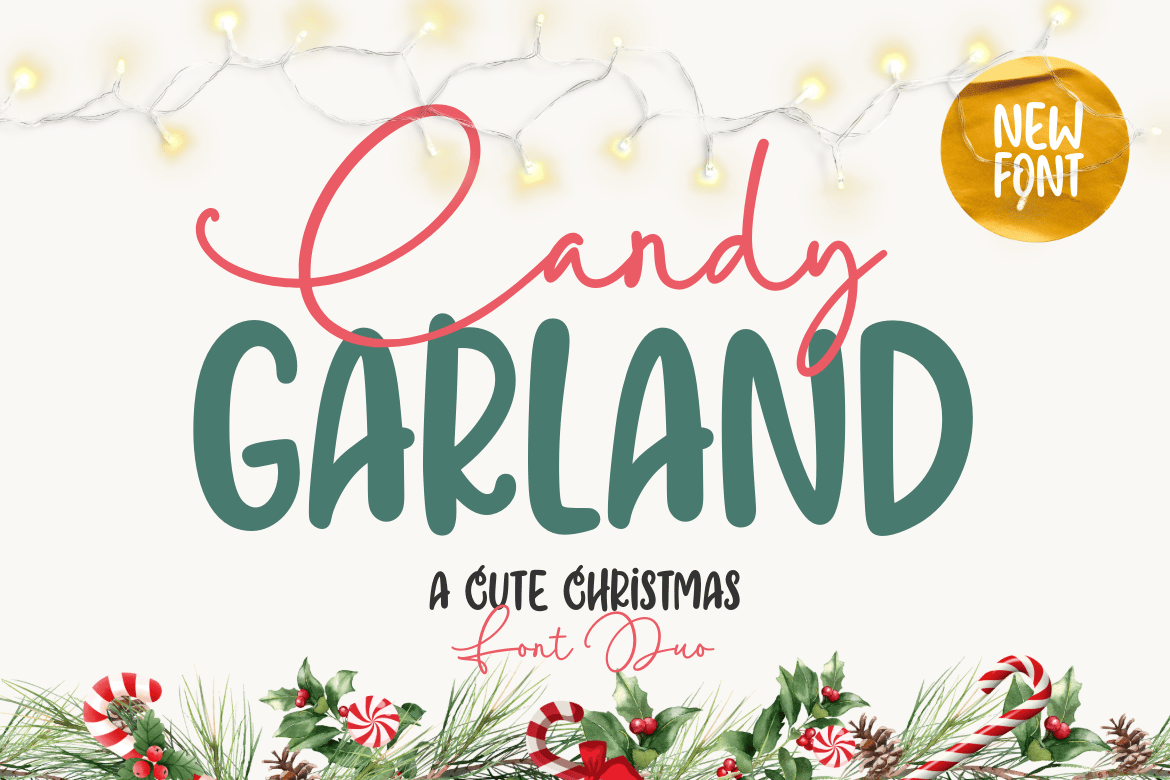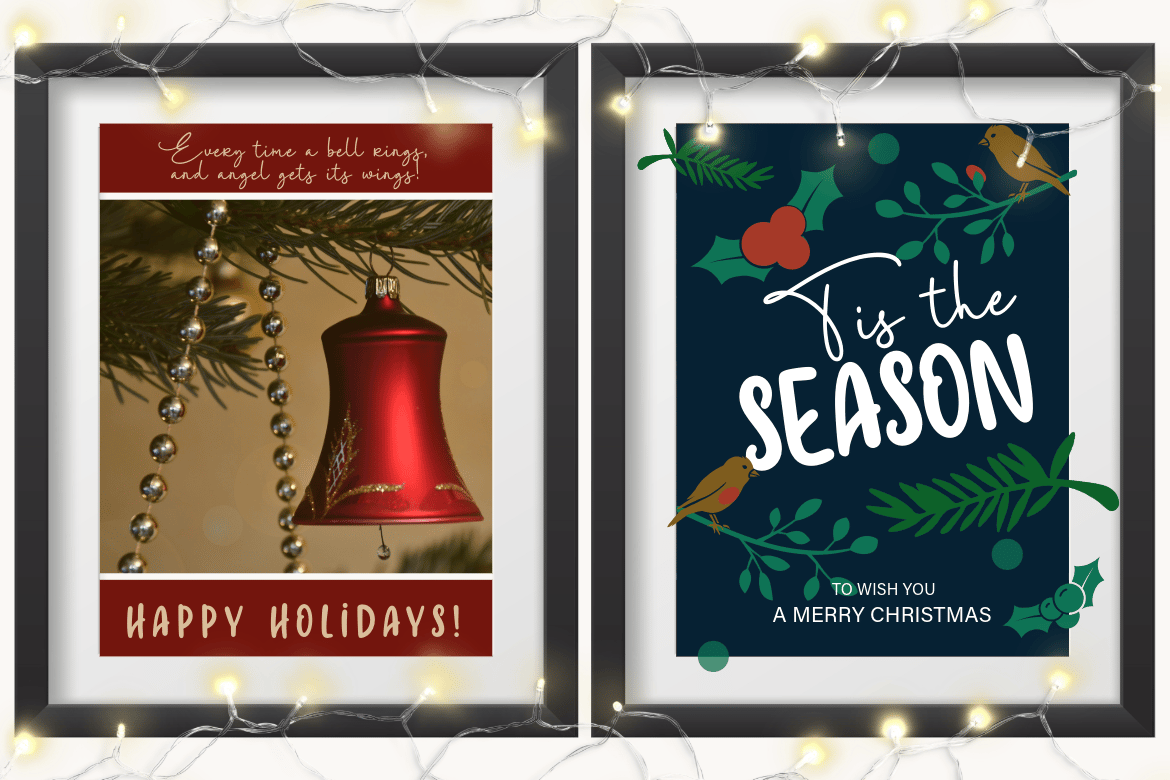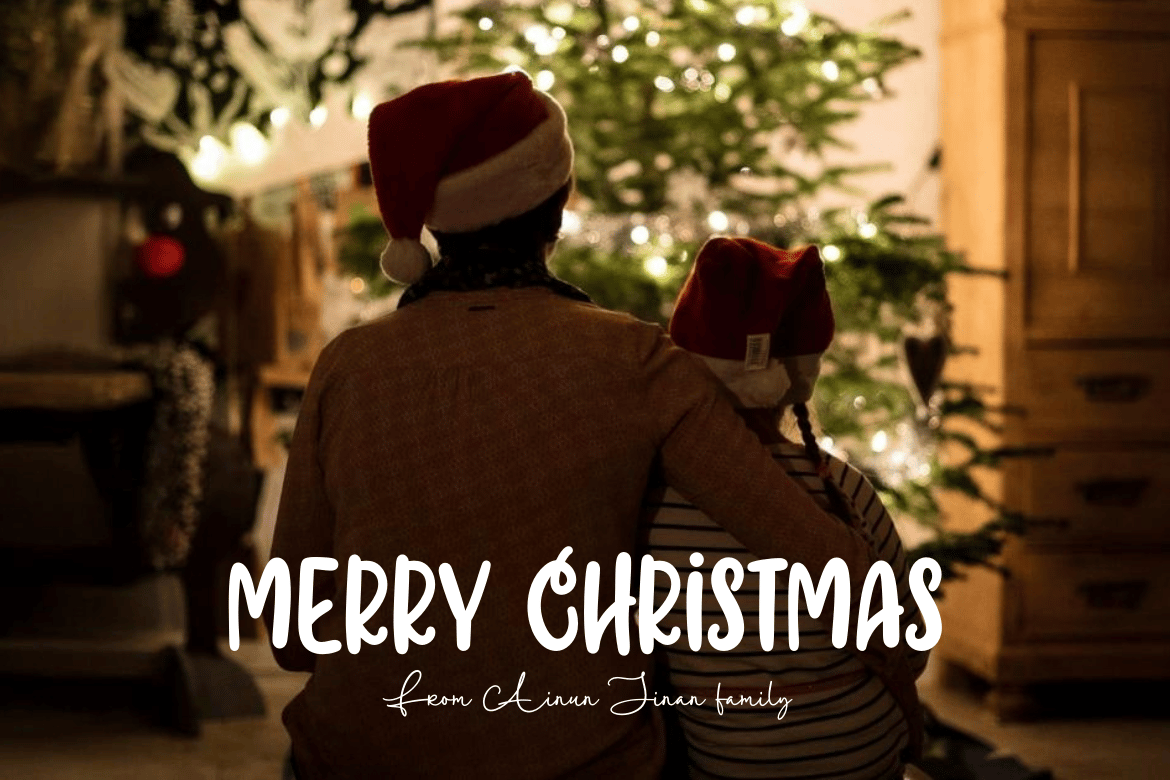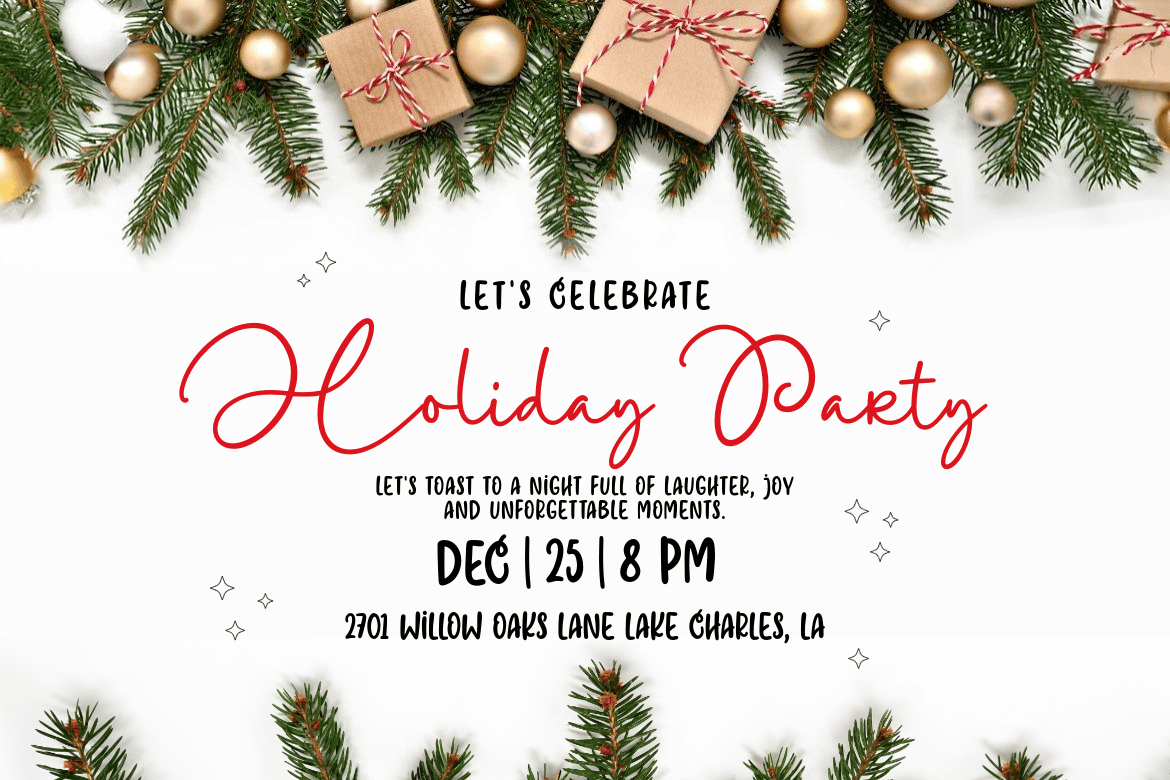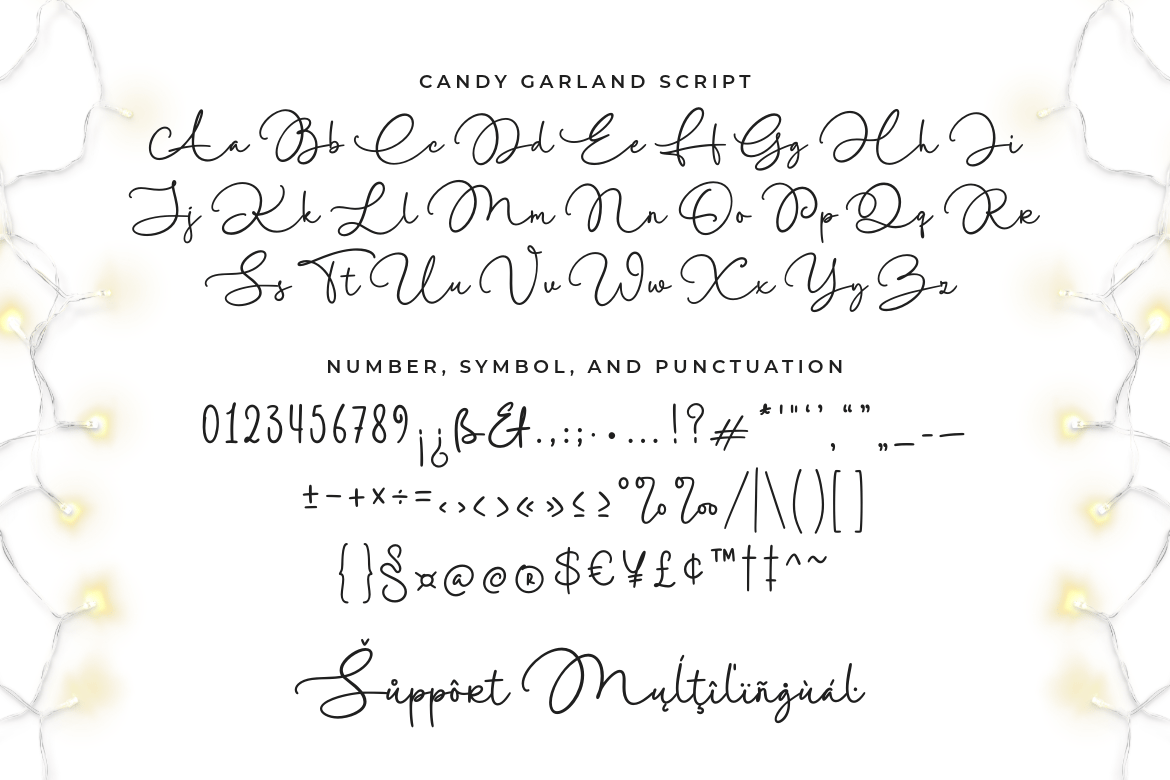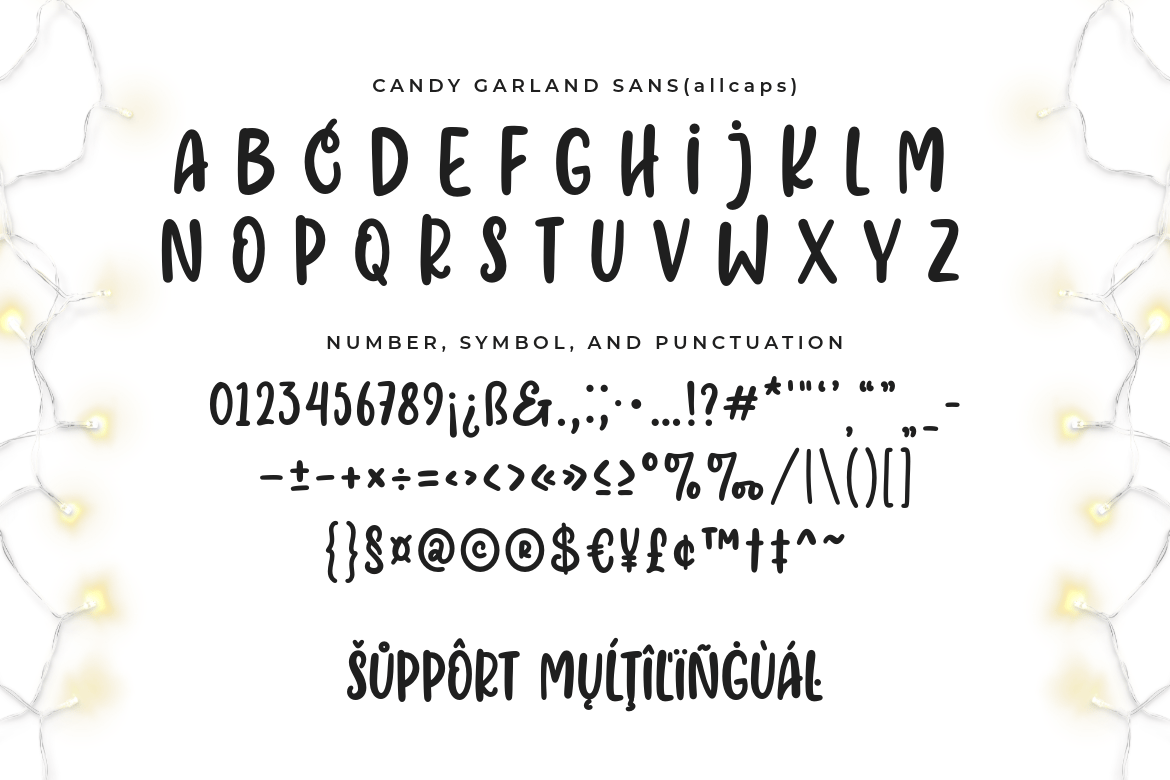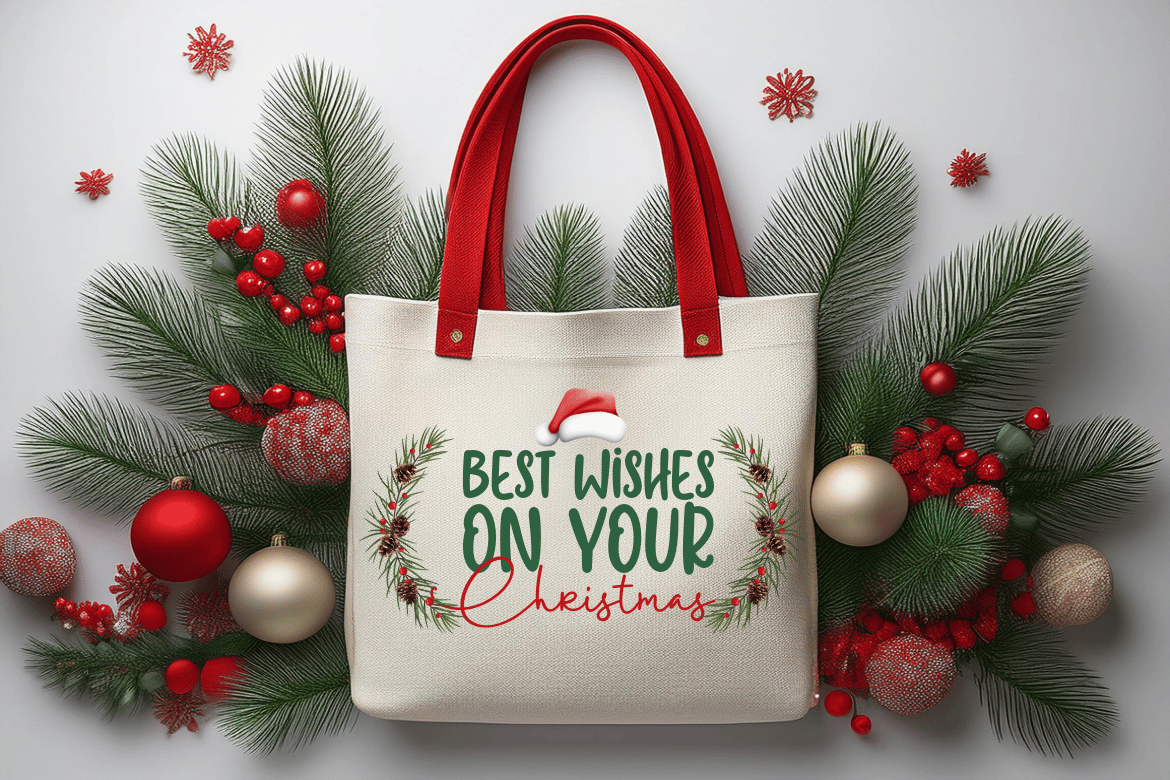
Candy Garland Font Duo
Candy Garland – A Cute Christmas Font Duo
Bring the holiday spirit to life with Candy Garland, a delightful font duo perfect for all your festive designs! This pair features:
A playful sans serif font with bold, rounded edges, ideal for making your headlines merry and bright.
A whimsical script font, adding a touch of elegance and charm with its flowing, hand-drawn style.
Perfect for holiday cards, festive branding, gift tags, social media posts, and more! The duo pairs seamlessly to create magical designs that capture the joy of the season.
- A set of uppercase and lowercase glyphs (all-caps sans version)
- Number, symbol, and punctuation
Let Candy Garland be the finishing touch to your Christmas projects!